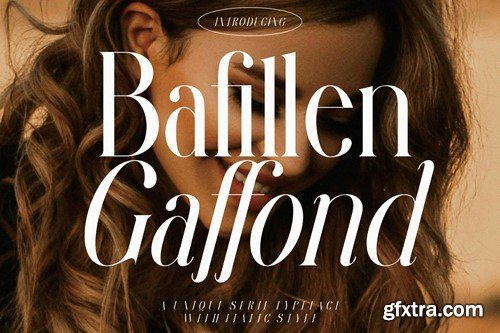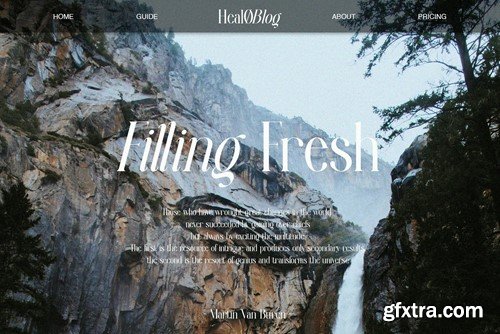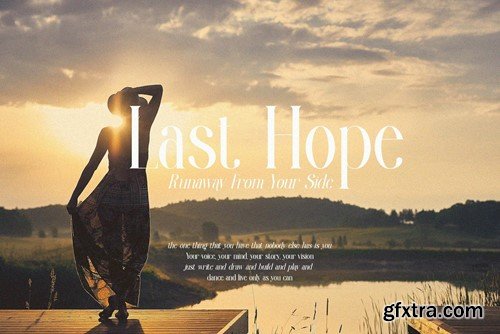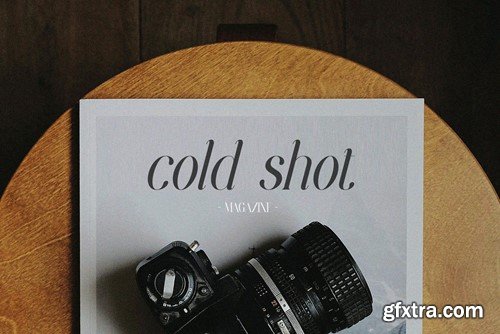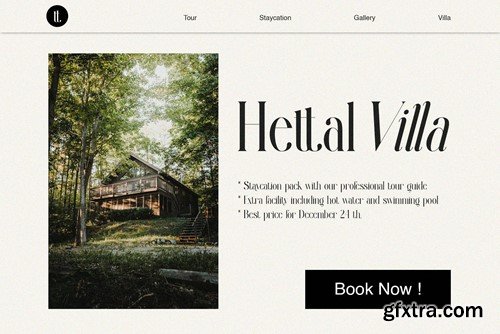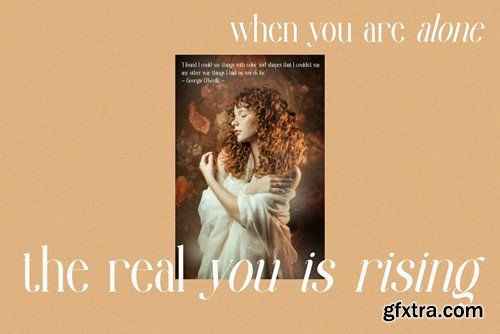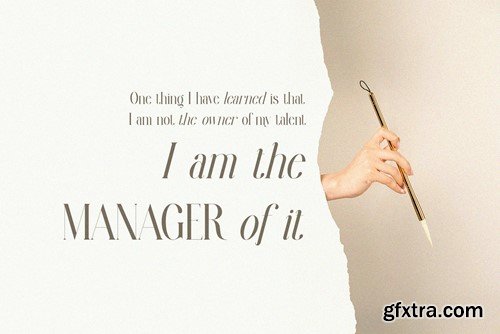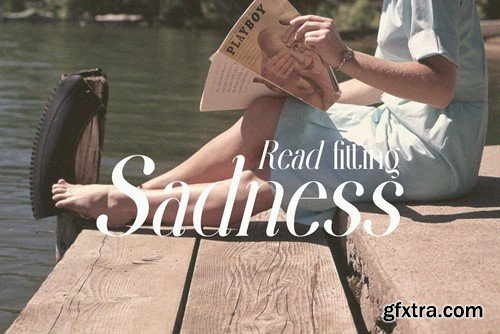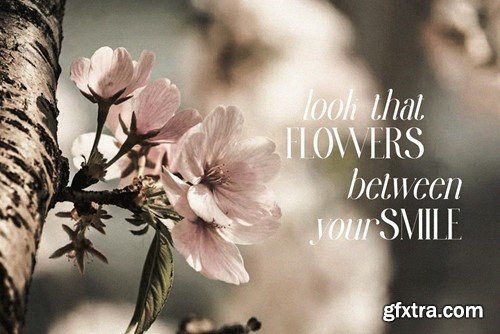
Bafillen Gaffond 独特衬线字体 3CFL9J8
Bafillen Gaffond Unique Serif Typeface 3CFL9J8
Bafillen Gaffond Unique Serif Typeface
Bafillen Gaffond Modern Serif Typeface inspired by the famous minimalist logo perfect for the purposes of designing templates, brochures, videos, advertising branding, logos, invitation, layout design, elegant crafting, beauty design and other
• italic serif typeface